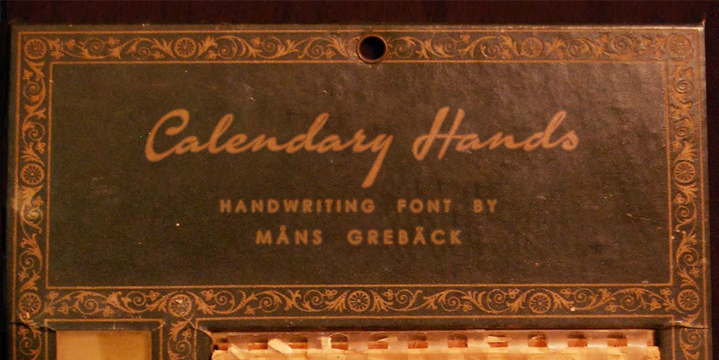
Calendary Hands by Måns Grebäck is a free calligraphic script with the drama of an oversized signature. Broad, dark downstrokes narrow into hairline sweeps, and the tall, looping capitals send long strokes in generous arcs across neighboring letters.
The formal penmanship character makes it especially convincing for wedding invitations, fashion editorials, and romantic album artwork, where its changing stroke widths can echo ribbons, signatures, or other fluid imagery. For perfume packaging or boutique branding, the lettering can become a custom-looking signature mark rather than a neutral label, with the sweeping joins and emphatic capitals contributing directly to a refined product identity.